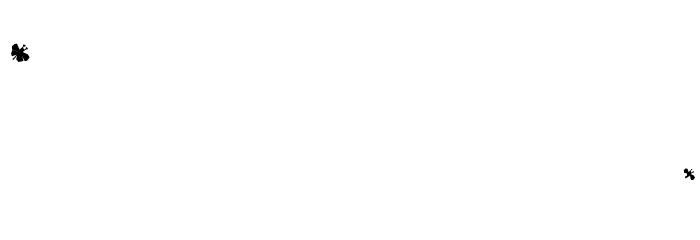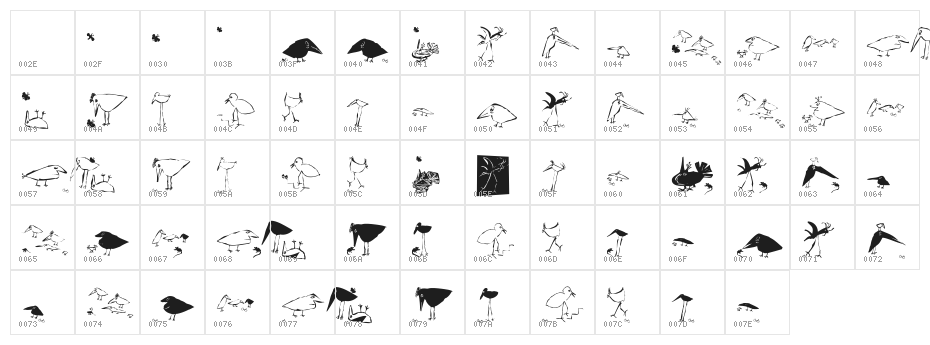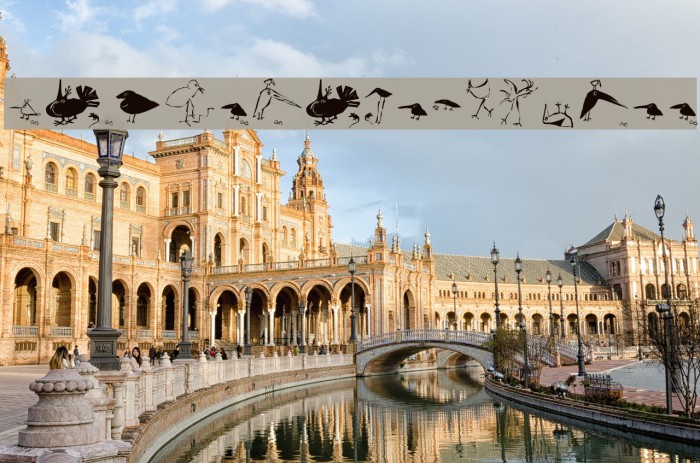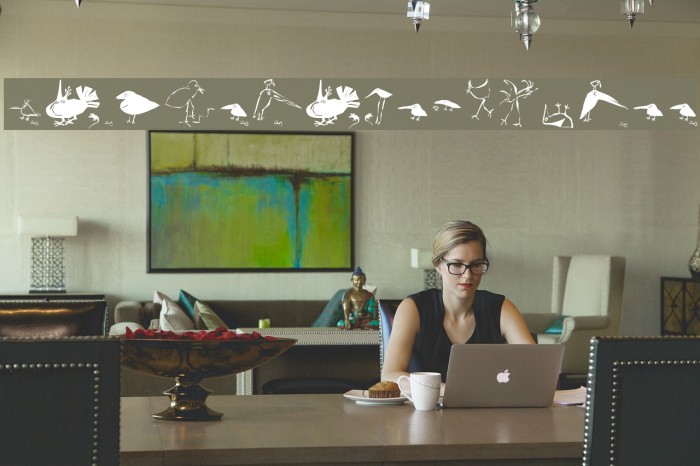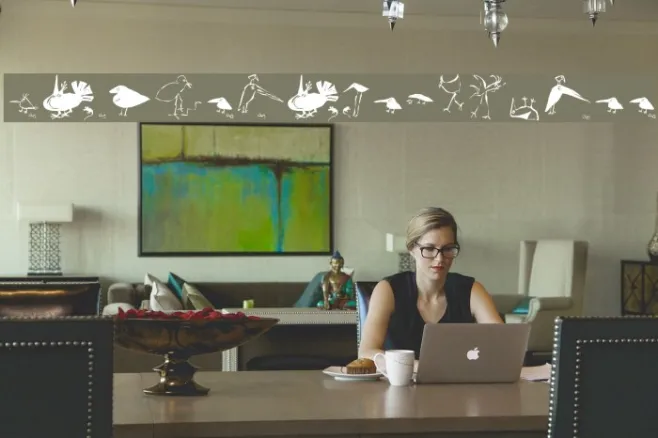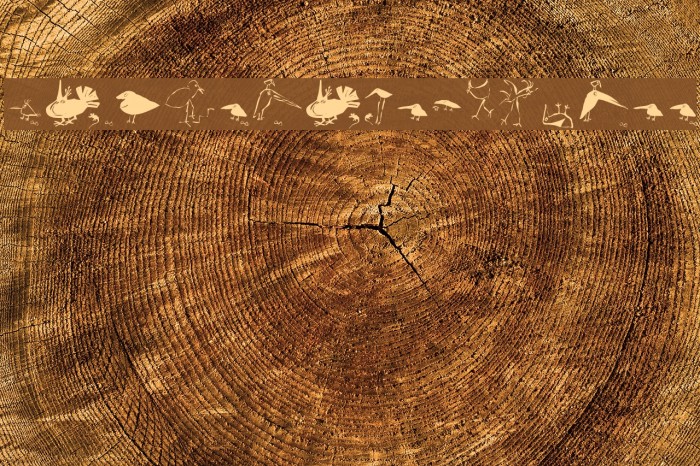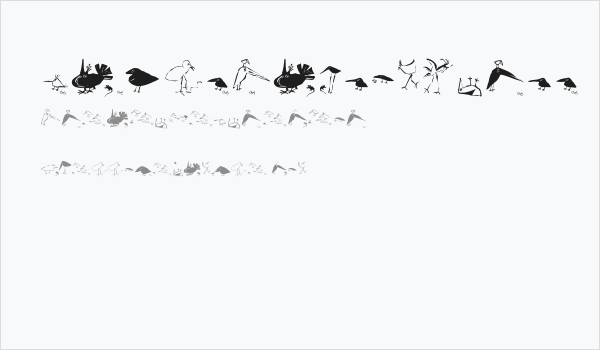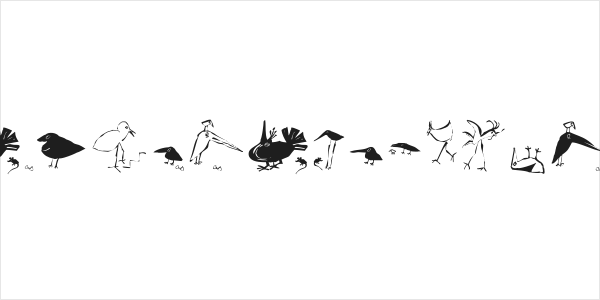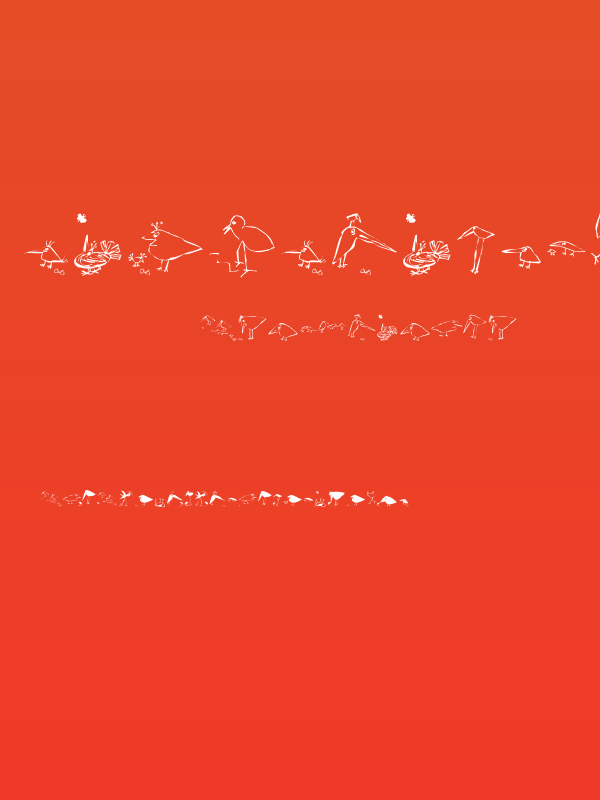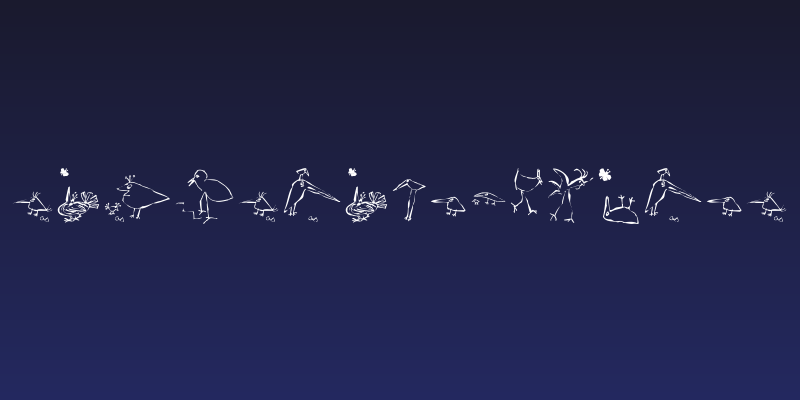
SaulsRandomBirds Font
SaulsRandomBirds Description
This is a decorative font featuring whimsical bird illustrations in place of traditional alphanumeric characters. Each character is represented by a unique bird design, showcasing a variety of poses and styles. The designs are playful and artistic, with a hand-drawn quality that adds a sense of charm and creativity. The font is not intended for standard text use but rather for decorative purposes where a fun and artistic touch is desired.